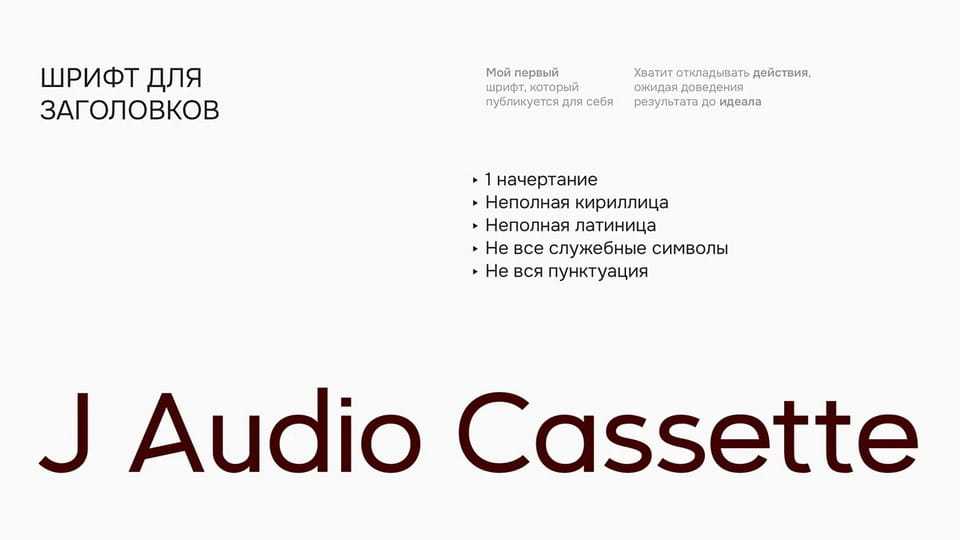
Download J Audio Cassette font, a handwritten display typeface inspired by cassette labels from the past. It carries a personal and nostalgic character rooted in everyday typography.
Designer: Yuriy Shlyapnikov